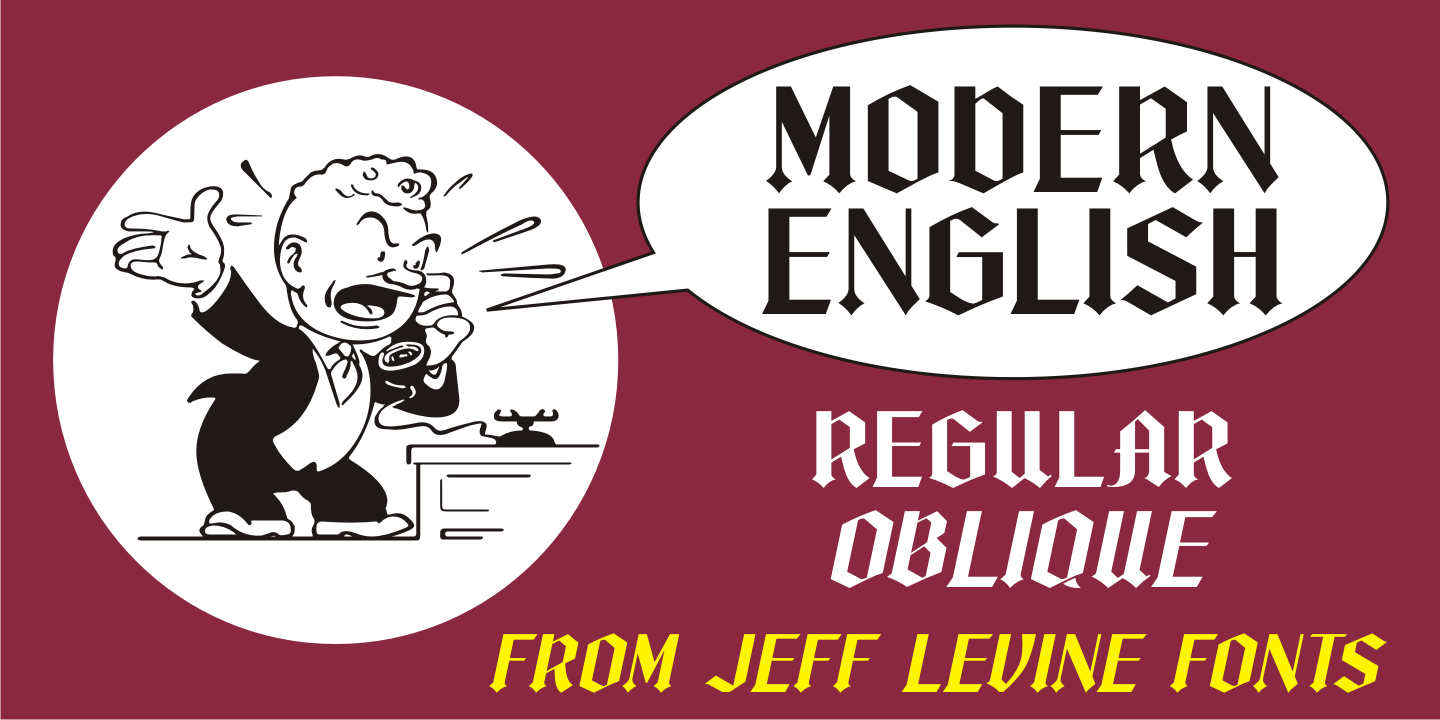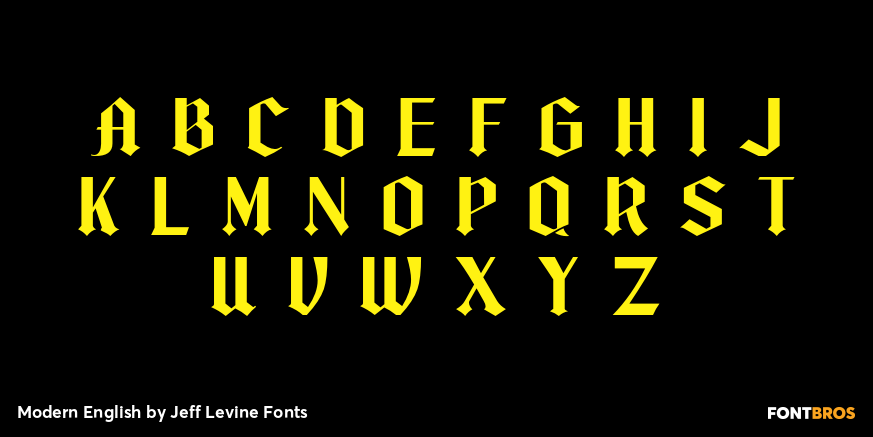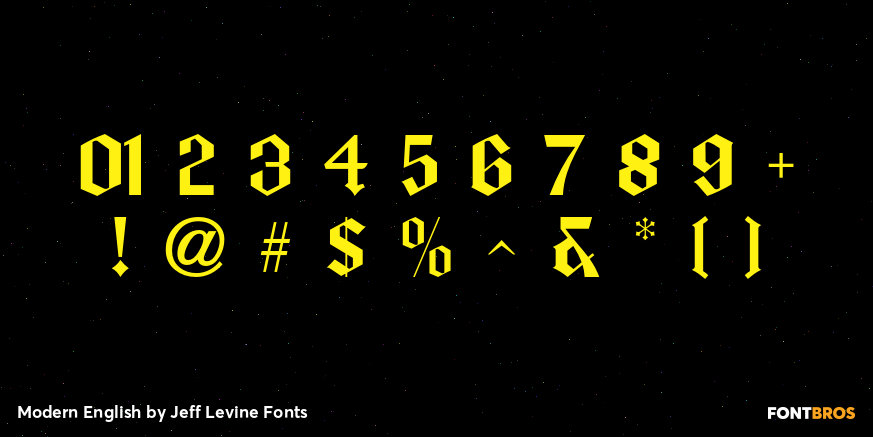
Modern English
Alf Becker was a master sign painter and lettering stylist who created well over 100 alphabets for a monthly feature in the trade magazine 'Sign of the Times” during the 1930s and 1940s. Thanks to Tod Swormstedt of ST pubications for supplying the source material.
One of these designs features a modernized version of Old English or 'text” lettering making it more legible for sign and show card work. Doing away with extra curves and swashes, this type style is more calligraphic in nature than classic.
Modern English JNL was modeled from Becker's original design, and is available in both regular and oblique versions.